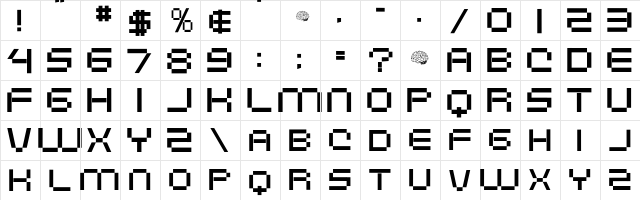
Digitalema Regular
Design Context for Digitalema Typeface
Digitalema has a distinctly futuristic character, with geometric precision and clean angles that feel at home in technology, gaming, and sci-fi contexts.